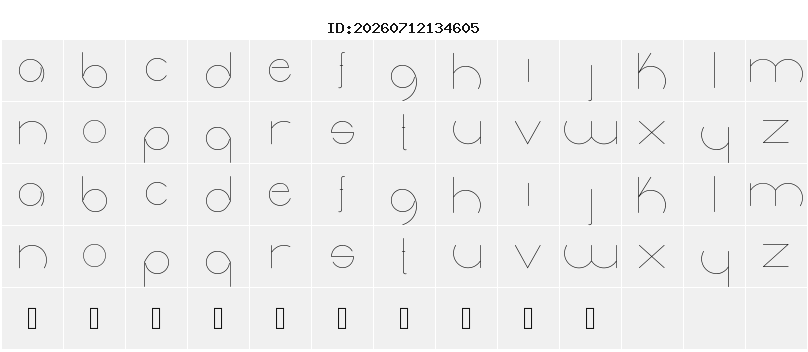
radiance Preview
• Font Name: radiance
• Full Font Name: radiance
• PostScript Name: radiance
About radiance.ttf
radiance.ttf is a modern, elegant sans-serif font designed for ultimate readability and visual harmony. Perfect for branding, headlines, web design, and print materials.